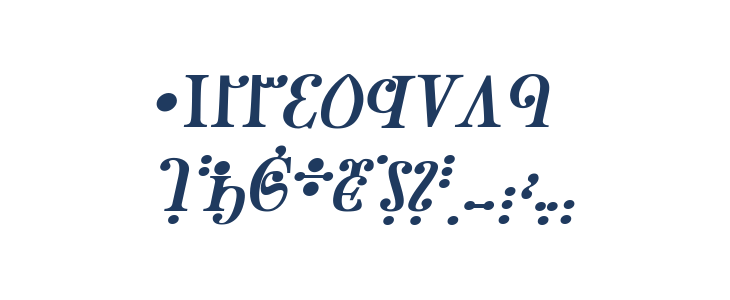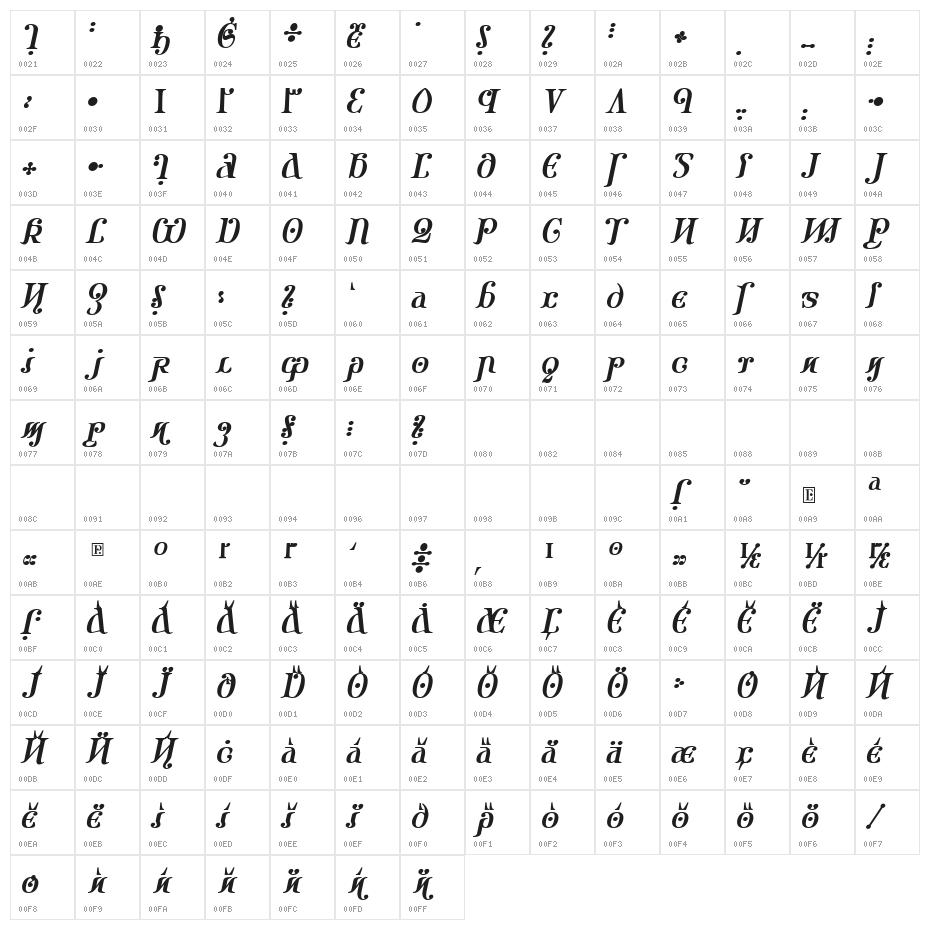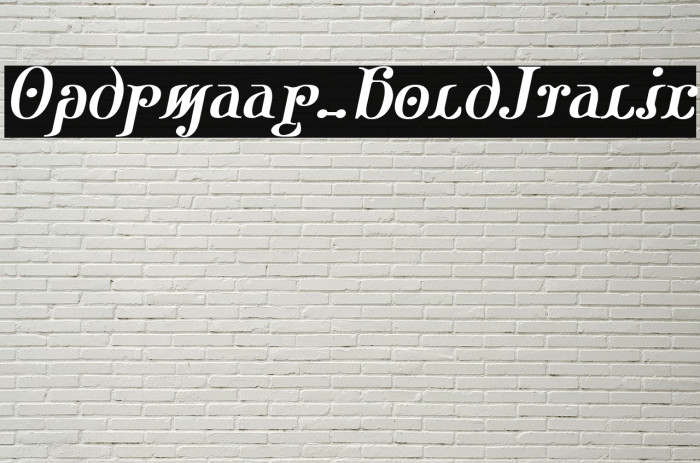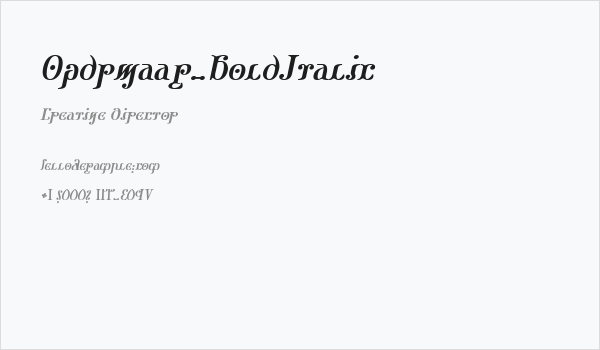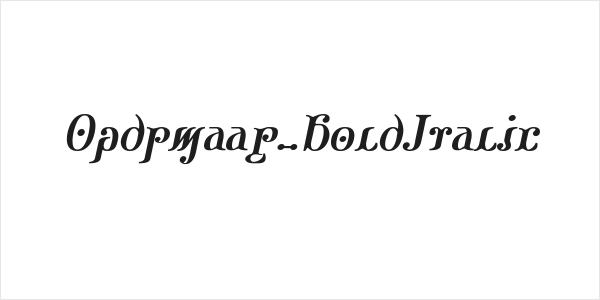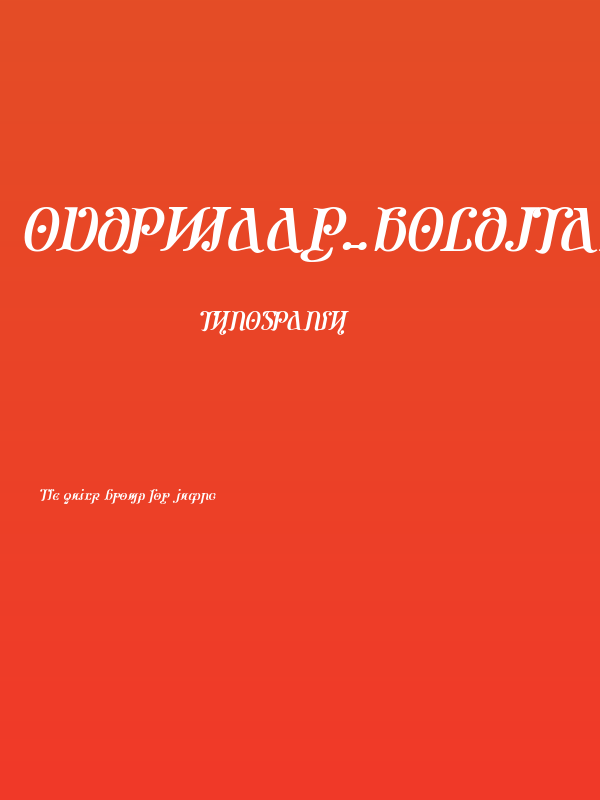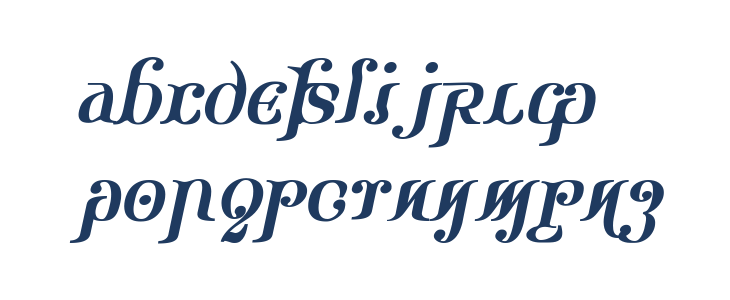
Ondrwaax-BoldItalic Font
Ondrwaax-BoldItalic Description
This font features a bold and italicized style with a unique decorative flair. The characters exhibit a high contrast between thick and thin strokes, creating a dynamic and eye-catching appearance. The serifs are pronounced, adding a classic touch to the overall modern design. The uppercase and lowercase letters maintain a consistent style, with some characters displaying distinctive curves and loops that enhance the font's decorative nature. The numerals and special characters are equally stylized, ensuring uniformity across all elements. This font is ideal for projects that require a bold statement with a touch of elegance.